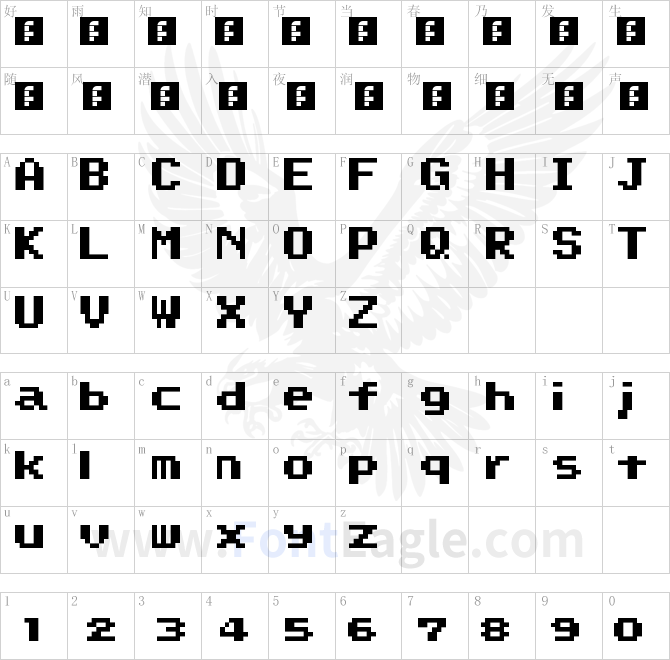
- Font name:Super Mario World
- Font Subfamily ID:FontStruct Super Mario World
- Font Full Name:Super Mario World Regular
- Postscript:Super-Mario-World